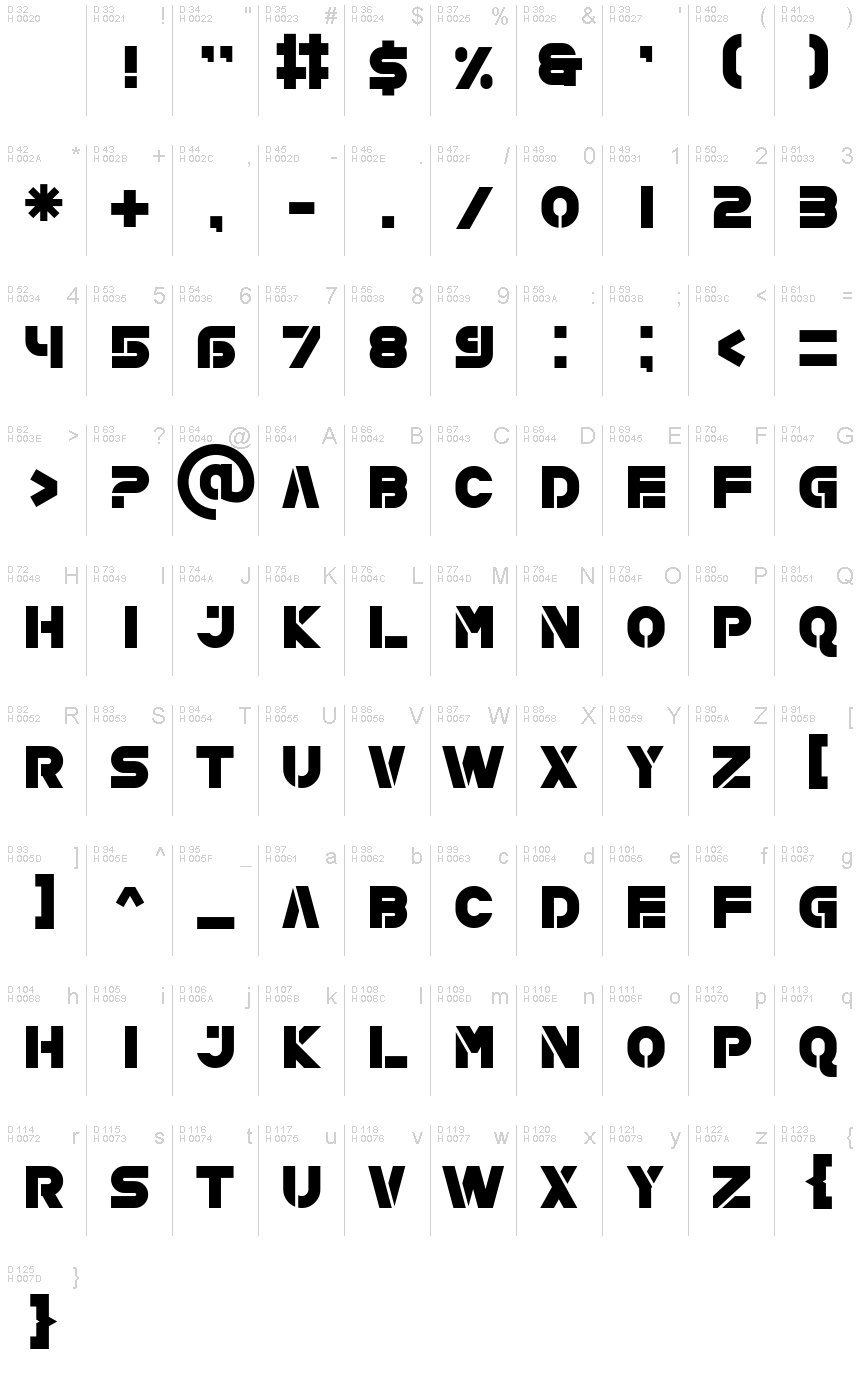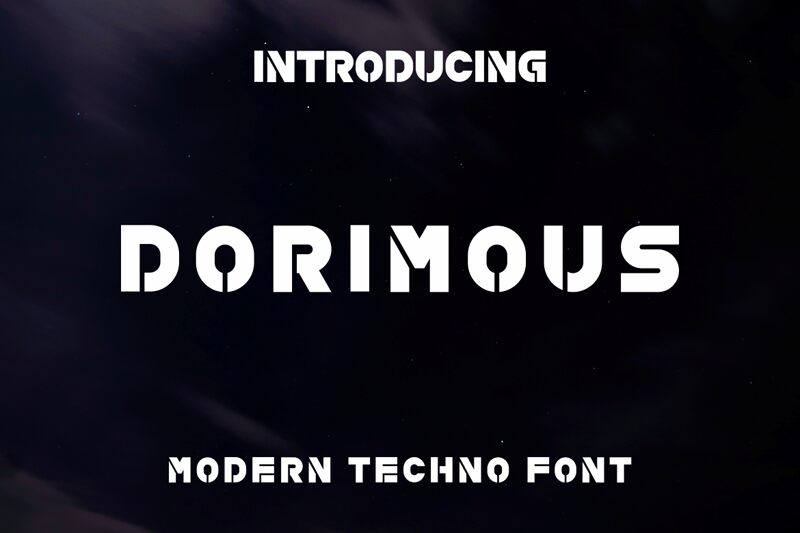
DORIMOUS Bold
Dorimous Bold, crafted by Gilang Ternadho of Maikohatta, exudes a bold and striking presence. This display font melds the captivating allure of techno dynamism with the precise aesthetics of stencil design, creating a visually engaging typographic masterpiece. Its robust form commands attention while its unique cut-out elements add a layer of modern sophistication.
Ideally suited for branding, posters, and headlines, Dorimous Bold shines in contexts that demand visual impact and contemporary flair. It's the go-to choice for projects where you need text to stand out with authority and style, effortlessly merging readability with artistic expression.